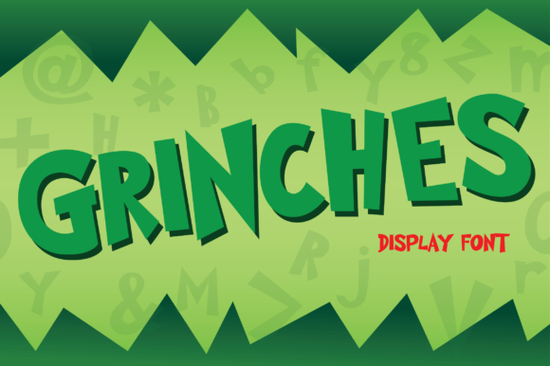
If you're looking for a playful, lighthearted display font that brings instant charm to kids’ birthday invites, classroom posters, or playful product labels, the Grinches Font is a solid choice. It’s not overly complex or fussy just friendly, bouncy, and full of personality. Designed with rounded shapes and uneven baselines, it feels handmade without sacrificing readability at medium to large sizes. That makes it especially handy for crafters who want something cheerful but still easy to cut on a Cricut or Silhouette, and for print-on-demand sellers building themed collections around holidays, baby showers, or preschool learning tools.
When does Grinches Font work best?
This font shines where warmth and approachability matter most. Think: cupcake shop signage, nursery wall art, sticker sheets for toddlers, or even playful packaging for organic baby products. Its slightly irregular letterforms give it a hand-drawn feel but unlike true script fonts, it doesn’t sacrifice legibility. You’ll find it fits naturally alongside bright palettes: think lemon yellow, mint green, coral pink, or sky blue. It’s not ideal for long paragraphs or fine print, but as a headline, title, or short phrase? It adds character without shouting.
For designers who often juggle multiple themes, pairing Grinches Font with complementary styles helps keep projects cohesive. Try it next to clean sans-serifs like Montserrat or Poppins for contrast, or layer it over textured backgrounds (like watercolor paper scans or subtle grain overlays) to soften its digital edges.
How does it compare to other fun display fonts?
It sits comfortably in the same friendly neighborhood as Self-Dream Font, which leans more dreamy and soft great for bedtime stories or gentle branding. Boy Graffiti Font, by contrast, has more urban energy and edge, better suited for sporty or streetwear-inspired designs. And if your project leans rustic or adventurous, Wild Western Font offers bold serifs and vintage flair perfect for camp signs or cowboy-themed party kits.
None of these are “better” they’re just different tools for different moods. Grinches stands out for its balance: whimsical but not childish, distinctive but not distracting. It’s the kind of font you reach for when you want your message to feel like a smile.
Real-world uses from actual users
- A homeschool mom used it for printable alphabet flashcards kids loved tracing the rounded letters.
- A boutique candle maker paired it with hand-drawn illustrations for “Giggle Mint” and “Snuggle Spruce” scent labels.
- A teacher created a set of classroom job charts (“Line Leader”, “Book Buddy”, “Tech Helper”) students recognized their roles instantly thanks to the clear, upbeat styling.
- A POD seller added it to a series of “Tiny Human Approved” onesie designs, then reused the same font across matching mugs and tote bags.
One thing users consistently mention: it scales well. Whether resized to 24pt for a greeting card or blown up to 200pt for a vinyl wall quote, the proportions hold up. No awkward gaps or cramped spacing just consistent charm.
A quick checklist before you download
- ✅ You need a display font not a body text font.
- ✅ Your project has a cheerful, child-friendly, or lighthearted tone.
- ✅ You’re okay with a single weight (no bold or italic variants included).
- ✅ You’ll be using it at larger sizes 36pt and up works best.
- ✅ You want something that’s easy to cut, layer, or pair with simple graphics.
If those match your needs, Grinches Font is worth adding to your go-to collection. It won’t solve every design challenge but for the right moment, it adds just the right amount of joy.